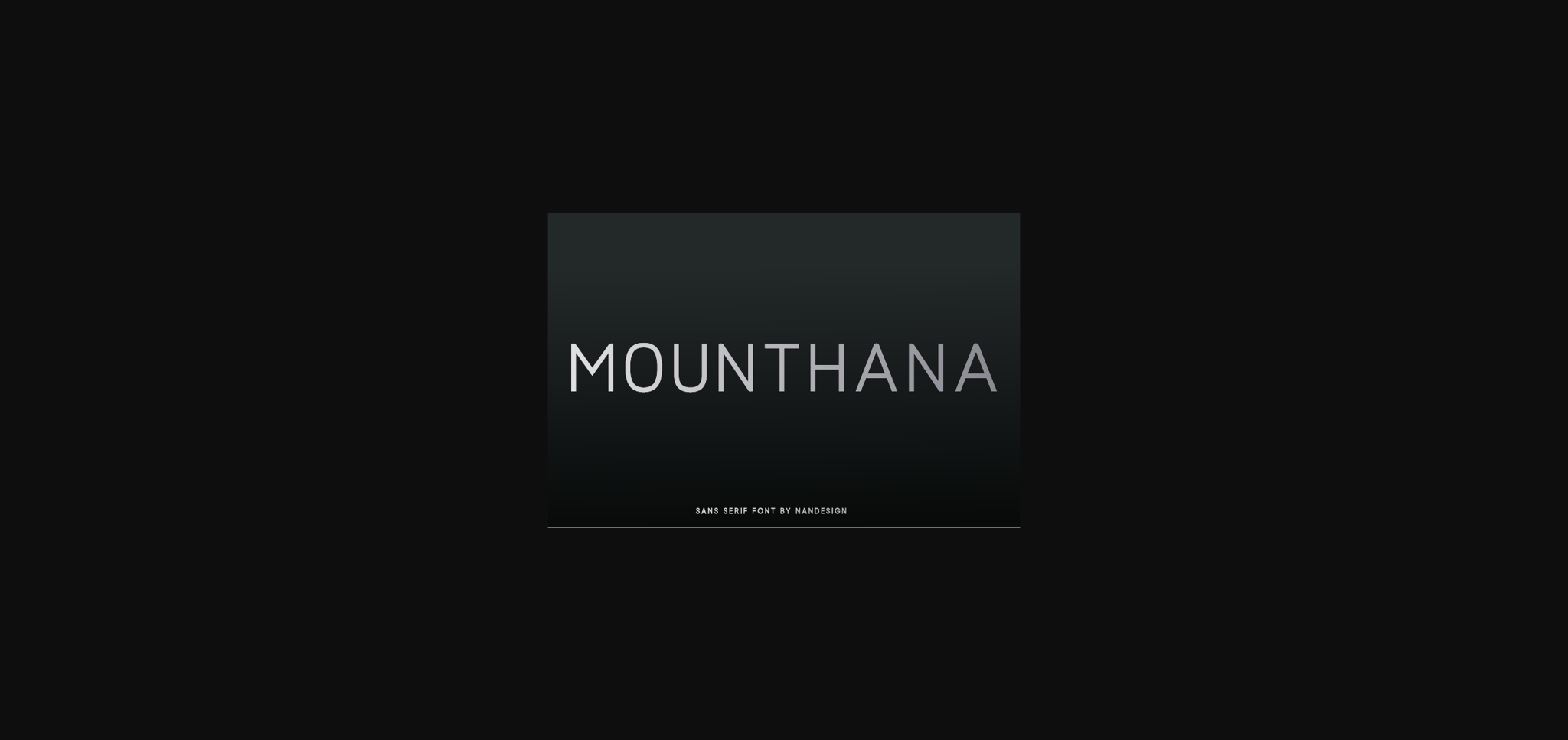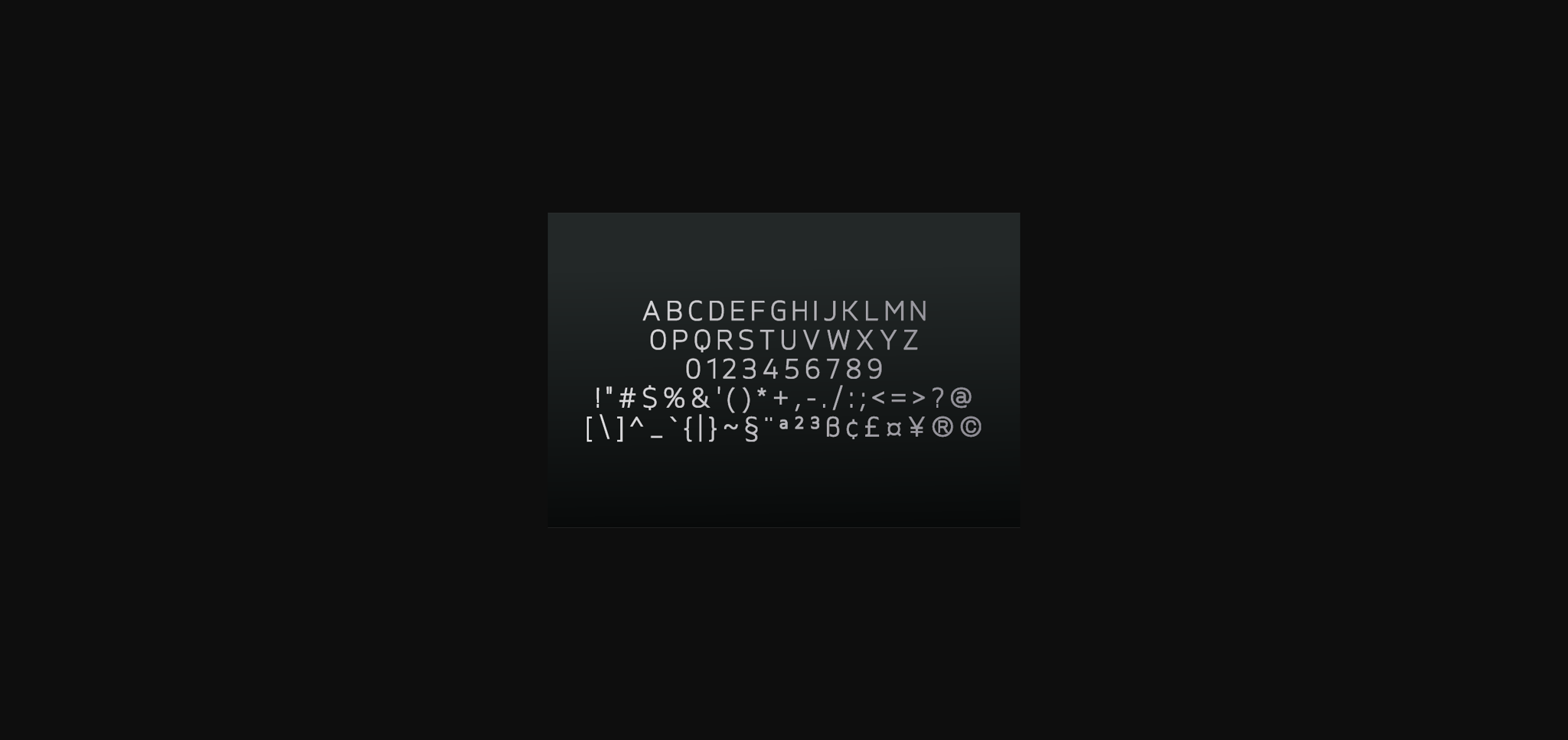
Mounthana Font
About Mounthana Font
Mounthana is a simple and casual sans serif font with an undeniably clean feel. With its smooth and beautiful arrangement of letters, this typeface will fit in both formal and non-formal designs.